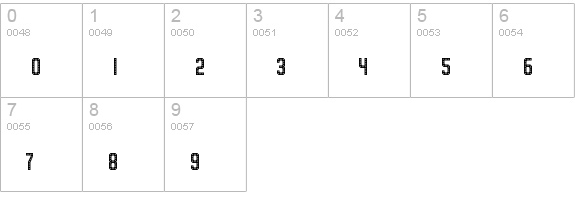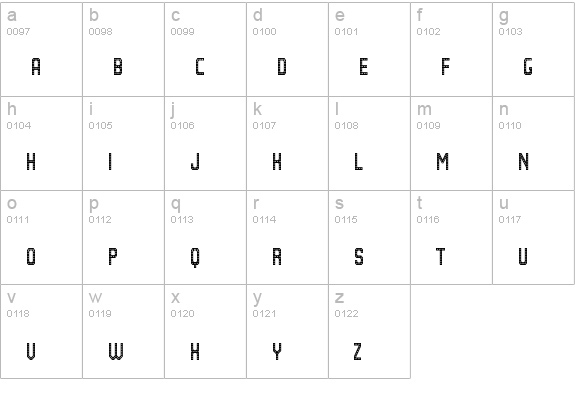
Party Lights [WLM] Regular Font Details
Party Lights [WLM] Regular is the standard, neutral variant in the Party typeface family \xE2\x80\x94 well suited to general body text, paragraphs, and standard typographic work.
Party Lights [WLM] Regular font is the perfect choice for adding a touch of excitement and joy to your designs. With its vibrant and playful letterforms, this font captures the essence of a lively party atmosphere. Whether you're designing invitations, posters, or any other party-related materials, Party Lights [WLM] Regular will bring your creations to life. Its unique and eye-catching characters will instantly grab the attention of your audience, setting the mood for a fun and memorable event. This font's versatility is another reason to love it. It works well for both digital and print designs, ensuring that your party decorations, social media posts, or website graphics will look amazing. The letters are carefully crafted to maintain legibility while still maintaining their playful and energetic appearance. And the best part? Party Lights [WLM] Regular font is available for free download at FontsMarket.com. You can easily access this fantastic typeface and start using it in your projects right away. Embrace the spirit of celebration and let Party Lights [WLM] Regular font illuminate your designs with its festive charm. So why wait? Bring the party to your designs with Party Lights [WLM] Regular font, freely available for download at FontsMarket.com. Let your creativity shine and create designs that will make any celebration come alive.